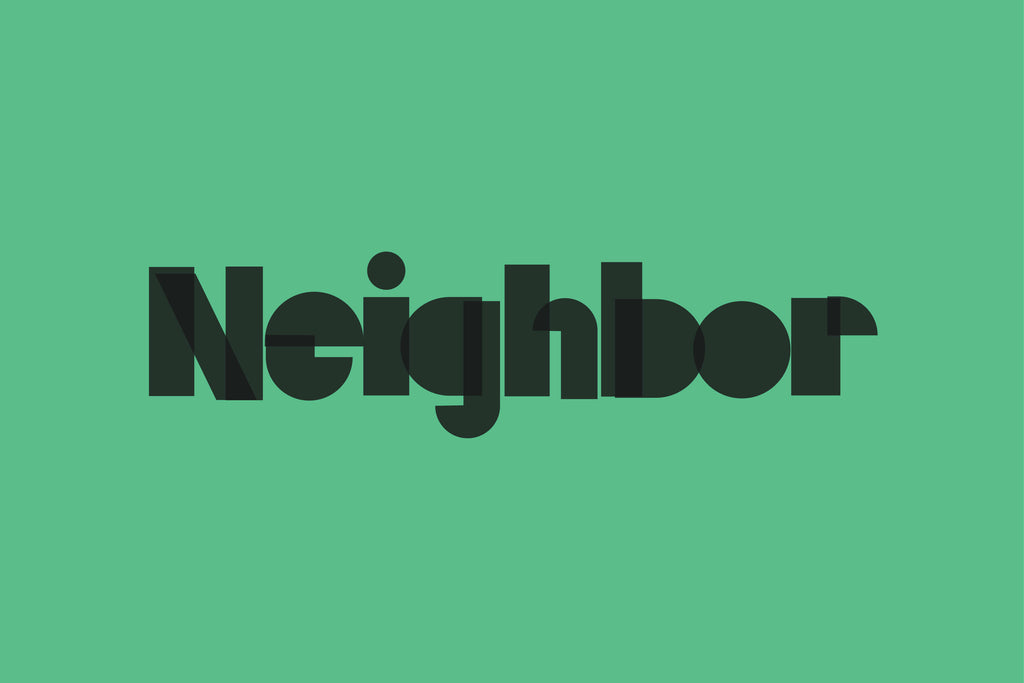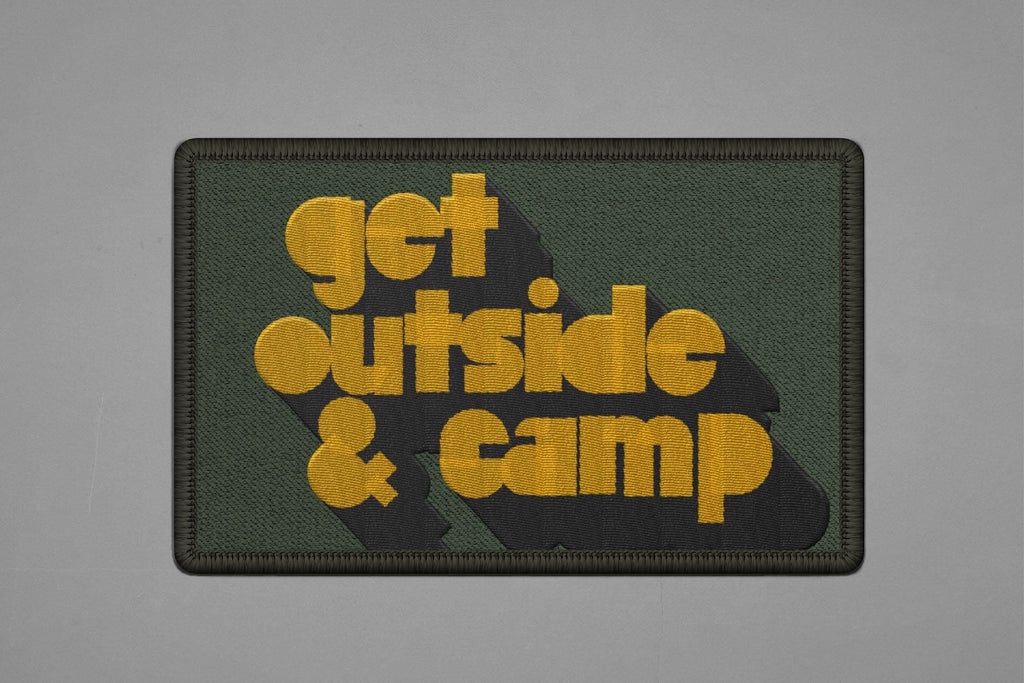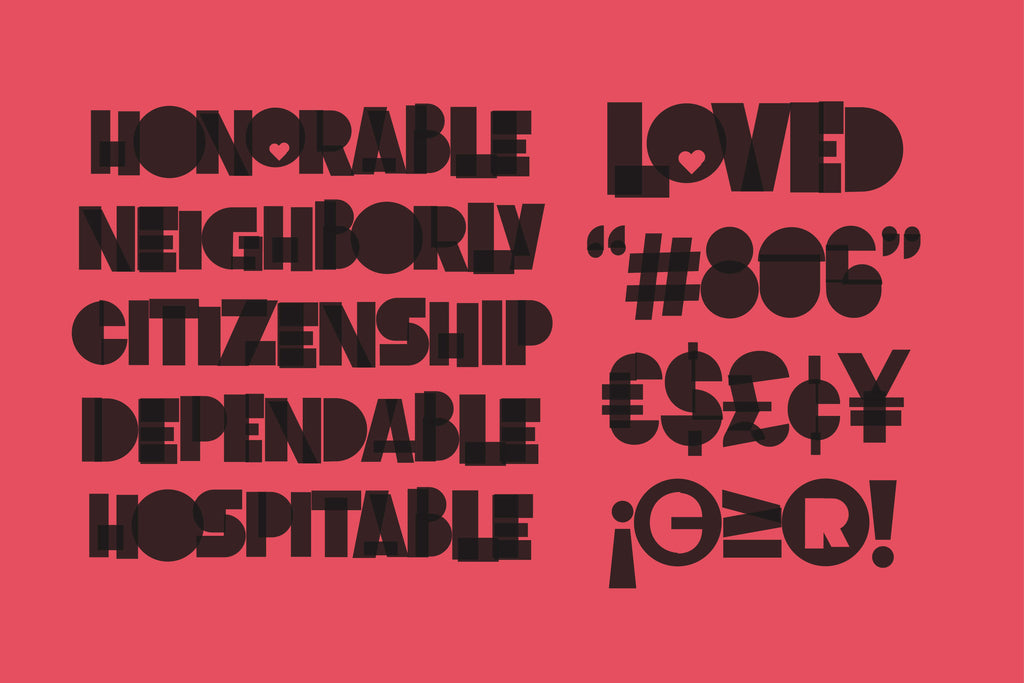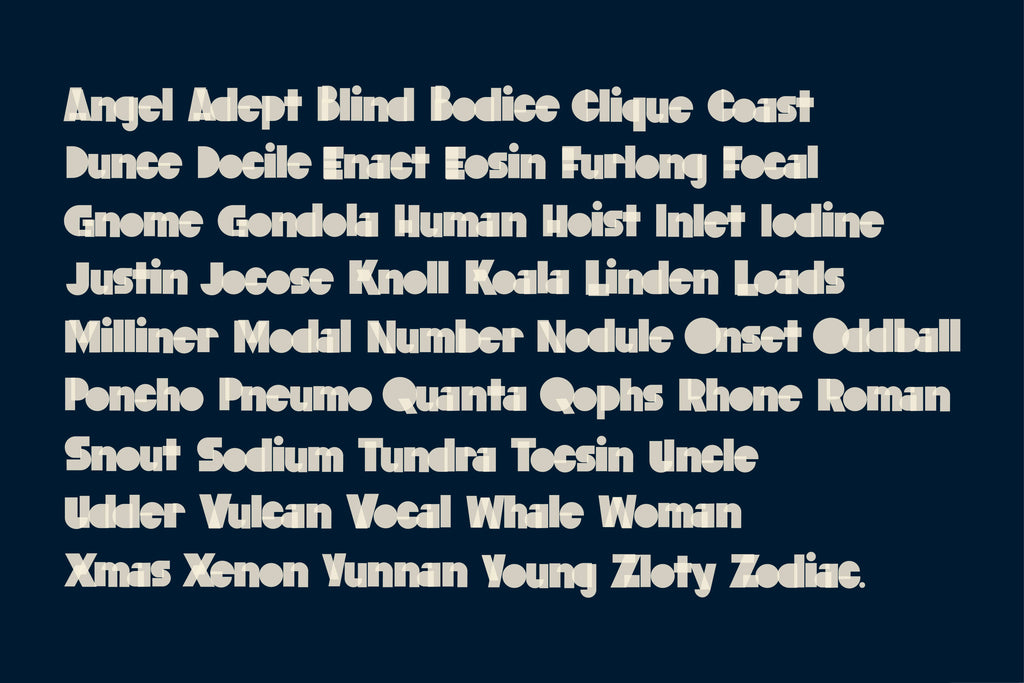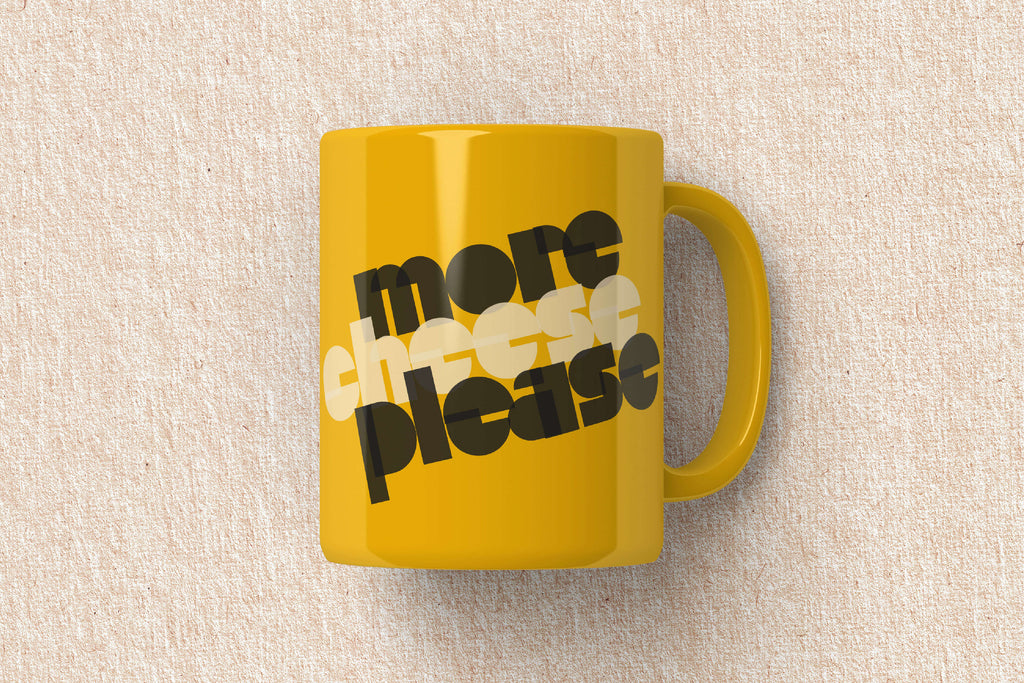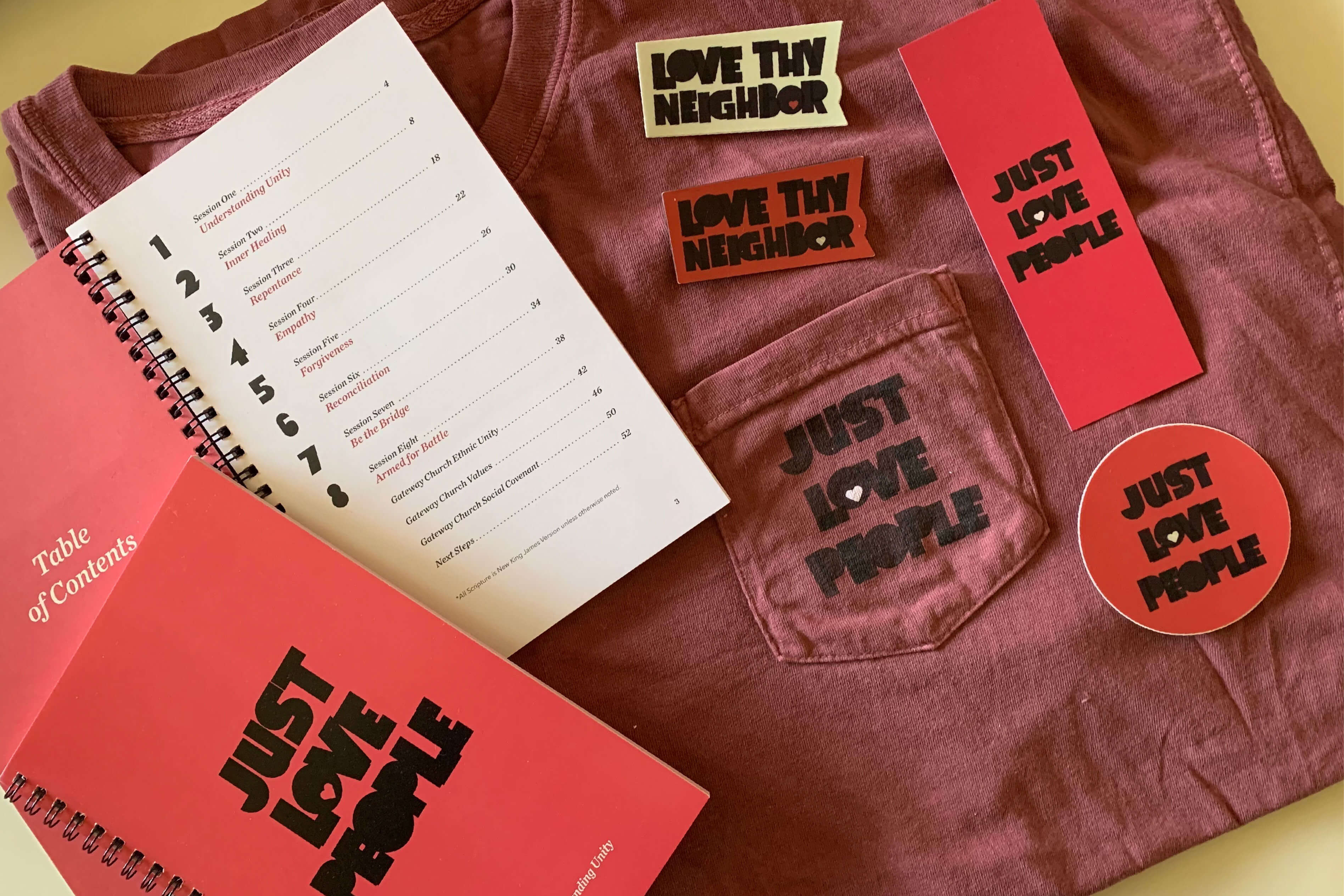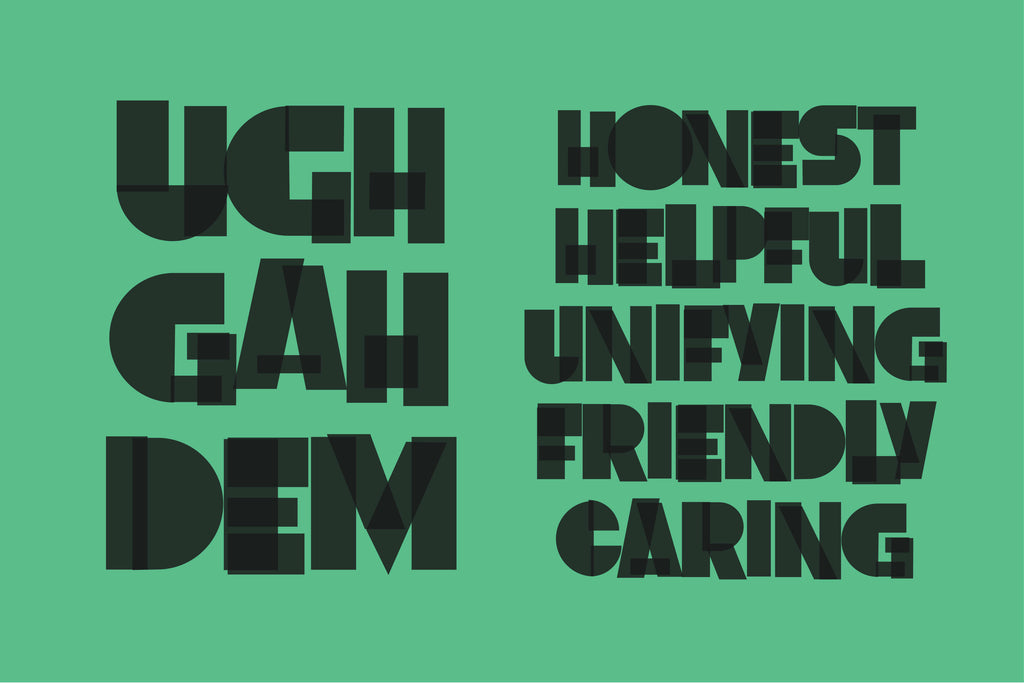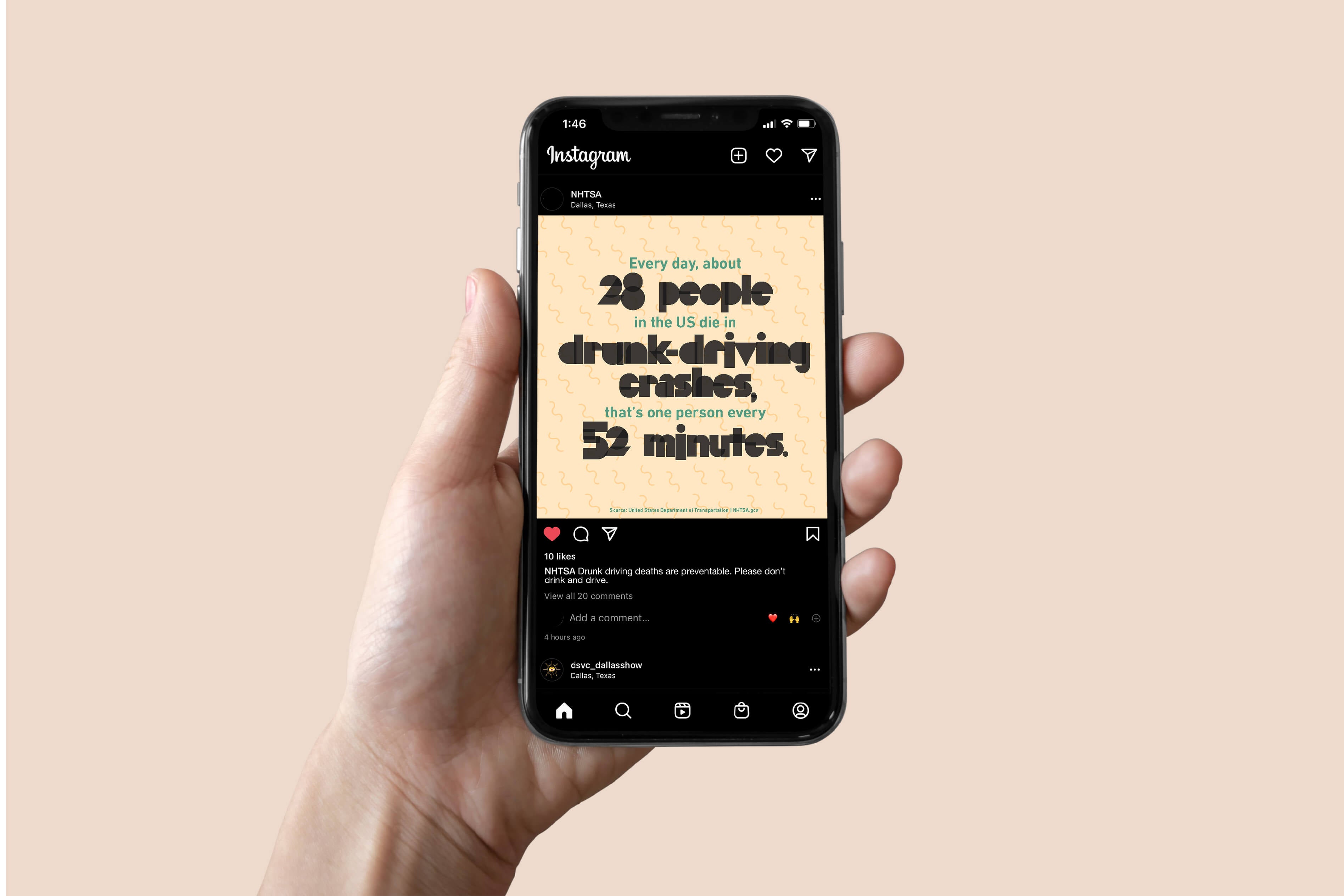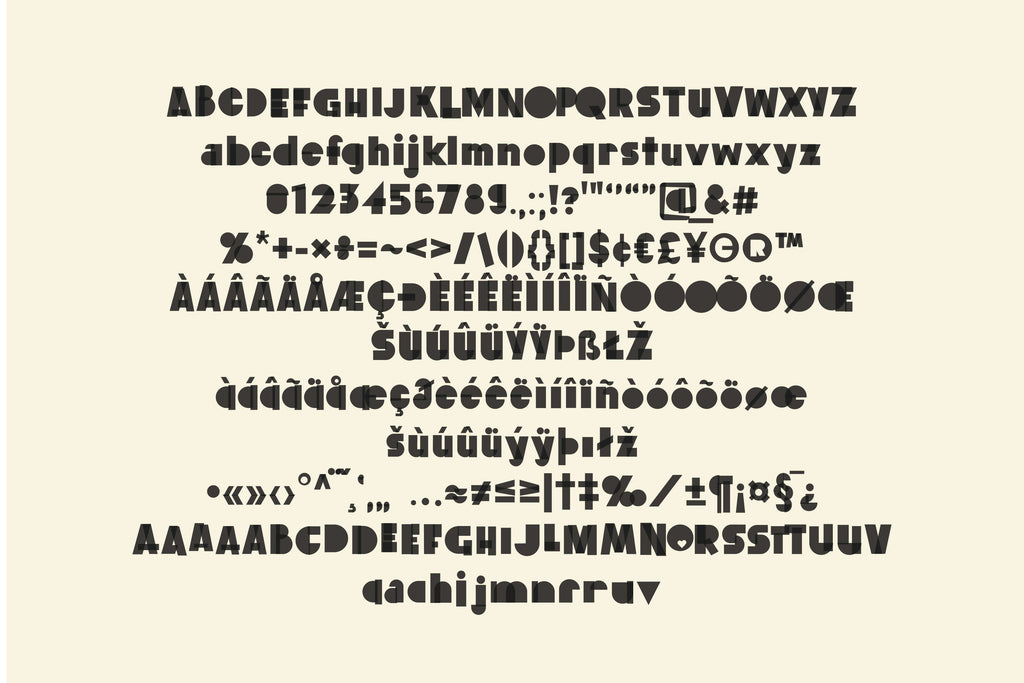
Neighbor Typeface
Neighbor is a conceptual display typeface born from a campaign focused on unity, compassion, prejudice, and division. Originally created for a four-week series addressing social walls, the letterforms represent people of different shapes and sizes coming together for a common goal.
The typeface uses overlapping transparent forms to visually communicate shared space and connection. Tight letter spacing reinforces closeness, while layered shapes reflect the complexity and beauty of community.
Following the campaign, Neighbor evolved into a full typeface for the Unity Summit, an all-day conference centered entirely on unity. To preserve the overlapping concept at the character level, Neighbor was developed as a color font, allowing each glyph to remain more than a single solid shape.
With 253 glyphs, multilingual support, and alternate characters, Neighbor expands its visual language while reinforcing its core message: unity through diversity. Ideal for branding, campaigns, conferences, apparel, posters, and social impact projects.